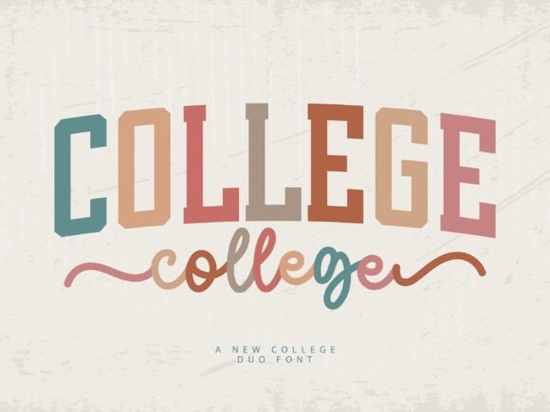
If you design sports merchandise, varsity jackets, or retro event logos, you've probably hunted for a typeface that combines a strong serif presence with a flowing handwritten touch. College Duo fills that gap by giving you a complete duo‑style set bold sporty uppercase letters paired with a smooth script lowercase. It's built for branding, T‑shirt graphics, and any project that needs a collegiate, athletic feel without relying on multiple separate fonts.
What makes College Duo different from other display fonts?
Most display fonts give you one personality. College Duo hands you two. The uppercase characters are a chunky serif with sharp slab edges that echo vintage letterman jackets and tournament plaques. The lowercase is a casual connected script that brings a hand‑signed feel ideal for player names, dates, and slogans. You also get numerals, punctuation, and symbols, so you can set a full scoreboard layout without leaving the font. The font holds its own alongside other sporty display fonts, but the baked‑in script saves you from hunting for a match.
When should you use College Duo for your projects?
You’ll see it shine on:
- Varsity jackets, T‑shirts, hoodies, and cap designs
- Sports team logos, esports branding, and fitness centers
- Event flyers, tournament posters, and social media banners
- Print‑on‑demand totes, mugs, and back‑to‑school decor
Because the script lowercase stays clear at moderate sizes, it works well as a secondary headline on mockups. I’d avoid setting full paragraphs in the script, but short quotes or player stats read fine.
How to pair the uppercase and lowercase for a balanced look?
The duo style gives you freedom, but you need a clear hierarchy to keep the design grounded. For a brand name, set the main word in all‑caps serif and write the tagline in the script. On a jersey back, place the player number in the slab serif and the name in the connected script. For posters, try stacking: bold serif on top, script subtitle below. Watch the kerning the script’s connecting stroke can bump into the serif’s thick edge. Add a touch of space or use a contrasting color to separate the two styles cleanly.
Is College Duo suitable for Cricut, Silhouette, and other cutting machines?
Yes, and crafters rely on it for heat‑transfer vinyl and cardstock. The sturdy slab serif weeds like a dream. For the script lowercase, weld the connecting letters in your software before cutting this prevents tiny islands and keeps the flow intact. If the script size drops below 1 inch, test first; the thin strokes can get delicate. For layered designs, save the script for single‑color decals and use the serif for the top layer. A quick test cut on your chosen material will confirm the settings.
What other fonts pair well with College Duo?
You don’t have to rely on the built‑in script for every detail. A sturdy geometric sans (like Montserrat or Bebas Neue) handles body text without stealing attention. If you need a playful, youthful element for kids’ sports flyers or birthday banners, a cute bubble display font introduces a soft contrast that lightens the mood. For a rougher streetwear vibe, pair the serif with a distressed brush font. Let College Duo carry the headline and keep the supporting typefaces simple.
Quick design checklist before you start
- Decide whether the serif or script leads the hierarchy.
- Weld script connections inside your cutting software.
- Test the font with your actual copy, not dummy text.
- Outline the script before exporting for print‑on‑demand platforms.
- Stick to a simple color palette dark ink on light fabric or a bold contrast makes the slab serif pop.